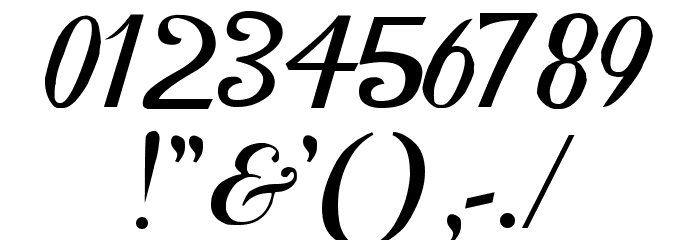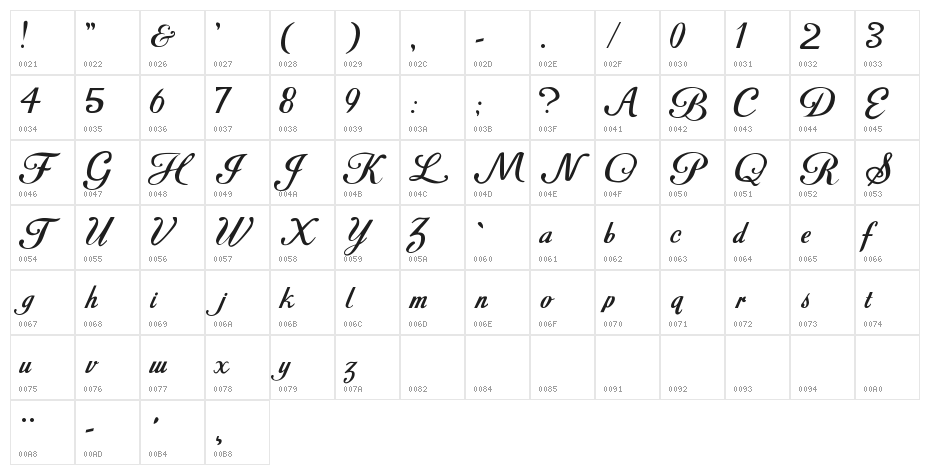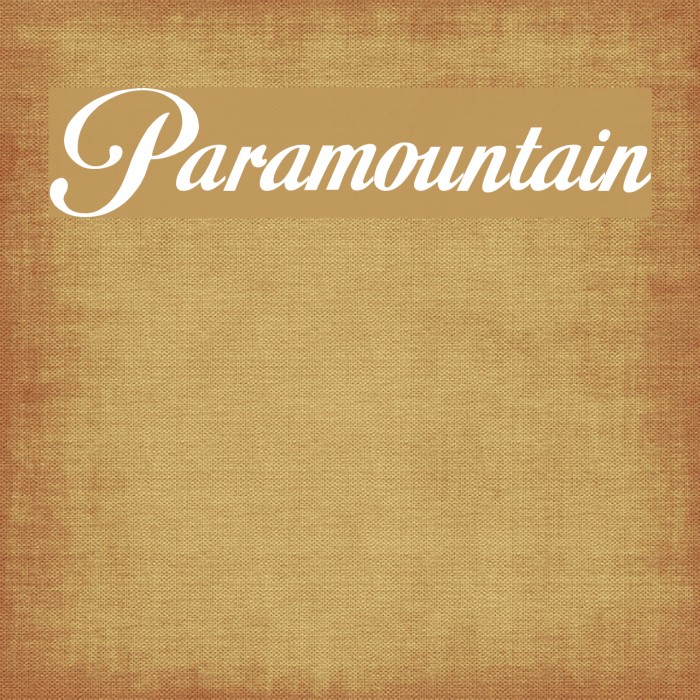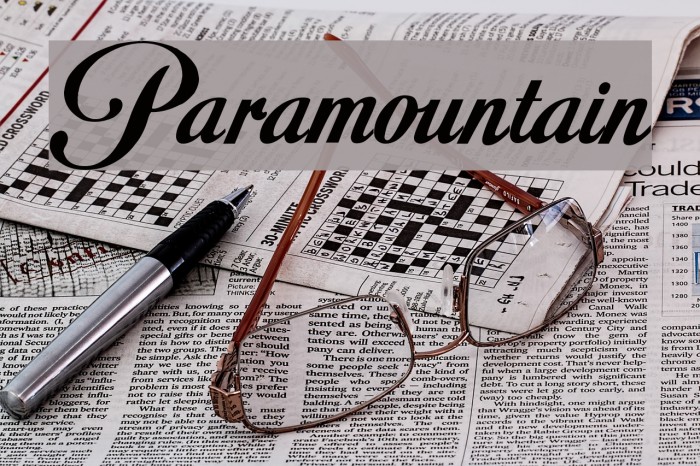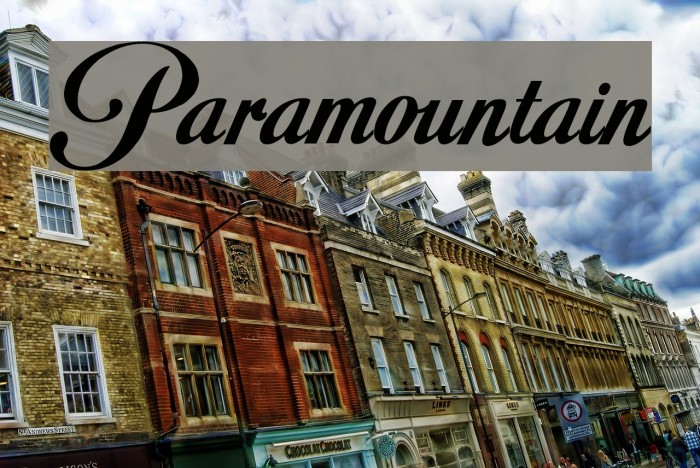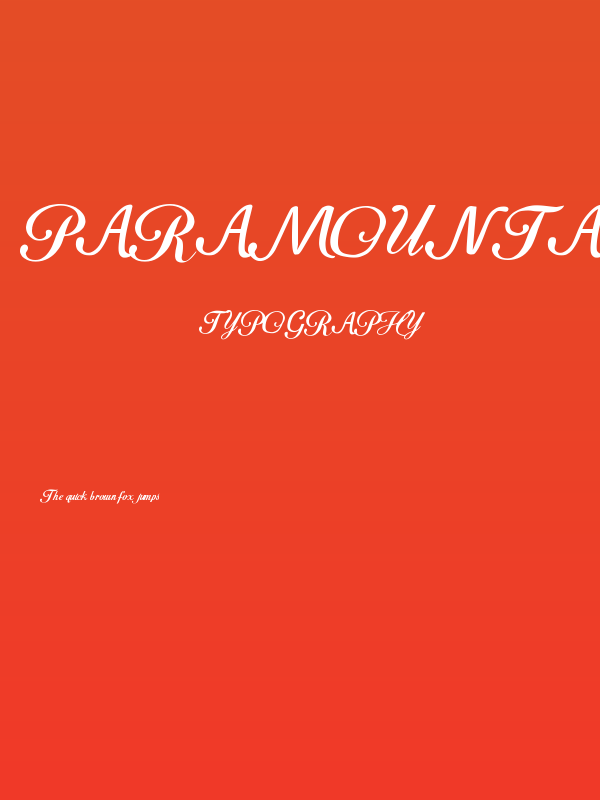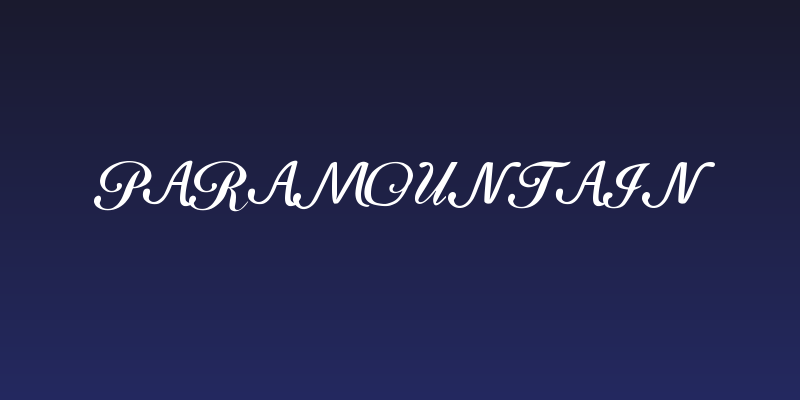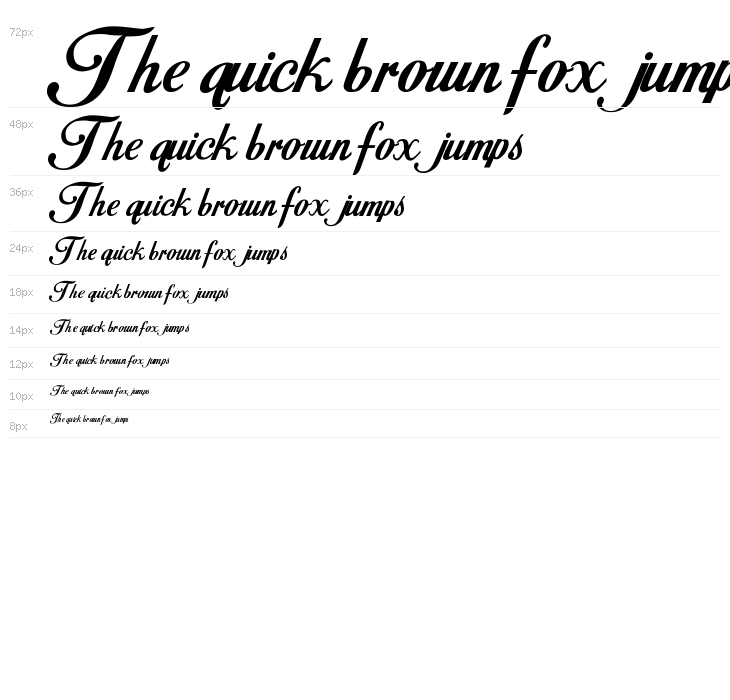
Paramountain Font
Paramountain Description
This elegant script font features flowing, cursive letters with a classic and sophisticated appearance. The uppercase letters are ornate, with graceful loops and flourishes that add a touch of formality. The lowercase letters maintain a consistent style, with smooth connections between characters, enhancing readability while preserving the decorative nature. The numerals are bold and well-defined, complementing the overall aesthetic. Special characters are designed with the same attention to detail, ensuring a cohesive look across all glyphs. This font is ideal for projects that require a touch of elegance and refinement.